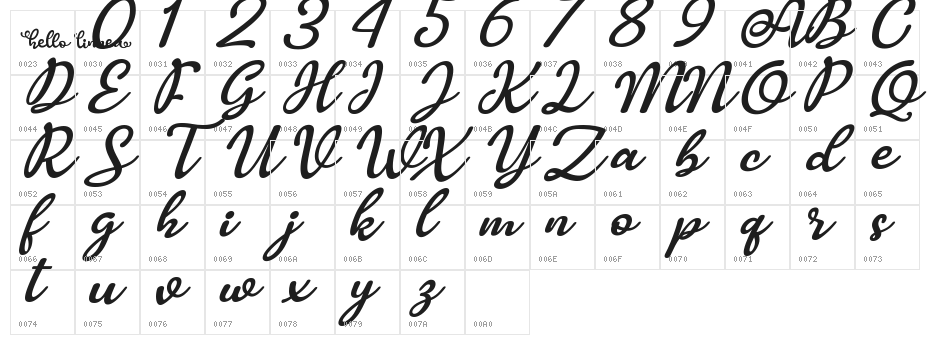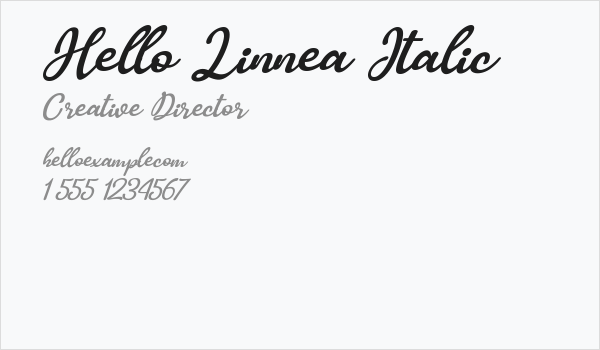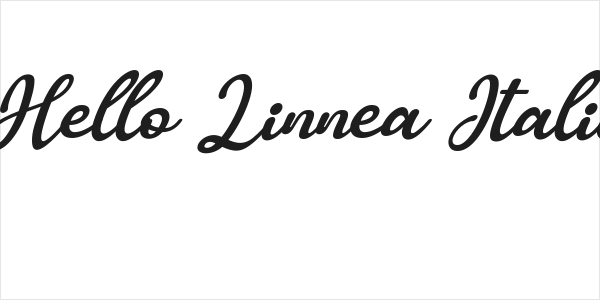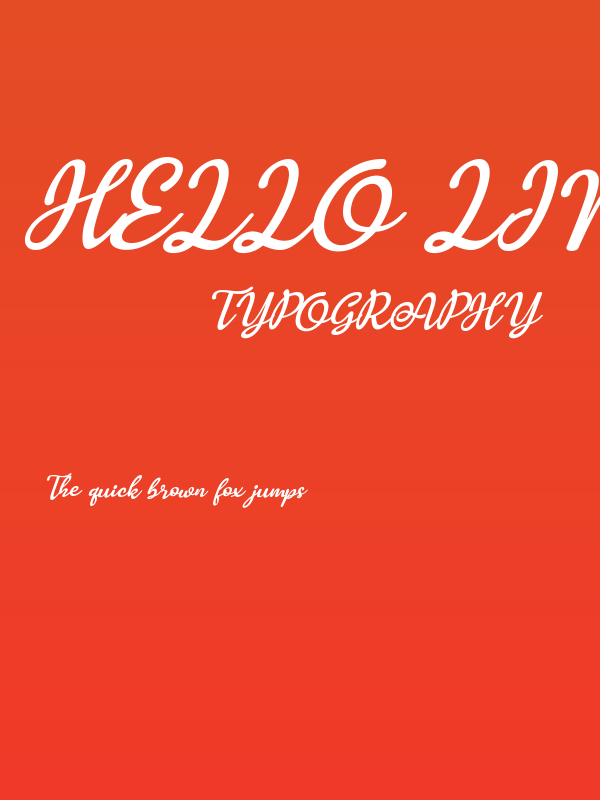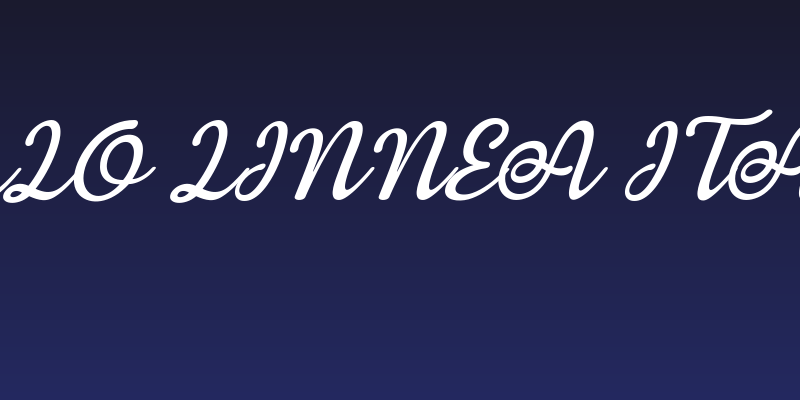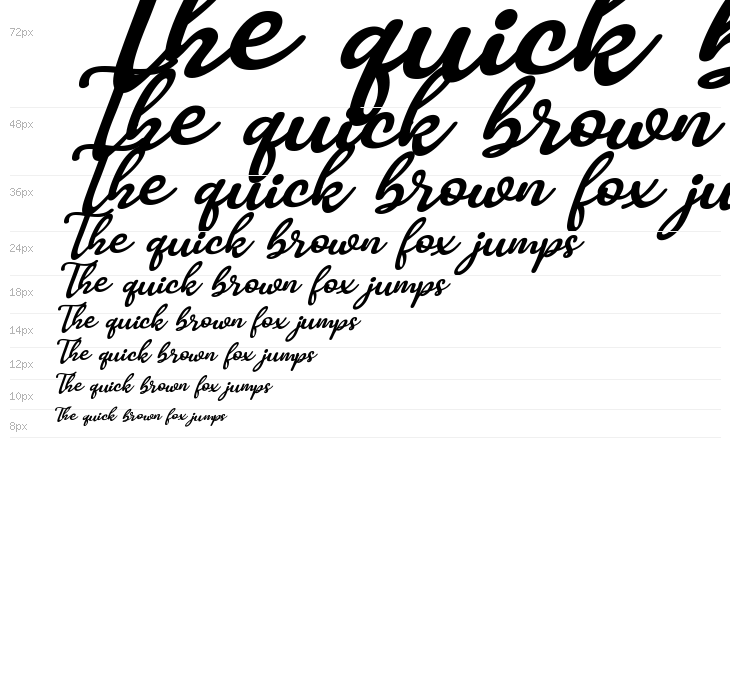
Hello Linnea Italic Font
Hello Linnea Italic Description
This font exudes a playful and elegant charm with its flowing, cursive style. The letters are interconnected, creating a seamless and fluid appearance that mimics natural handwriting. The uppercase letters maintain a consistent height, while the lowercase letters feature gentle loops and curves, adding to the font's graceful aesthetic. The numerals are bold and slightly rounded, ensuring readability while maintaining the overall style. Special characters are thoughtfully designed to blend harmoniously with the alphabet, enhancing the font's versatility. This font is ideal for projects that require a personal touch, such as invitations, greeting cards, or branding materials.
| Proposed Projects | Ideal for wedding invitations, personal branding, greeting cards, and decorative signage. |